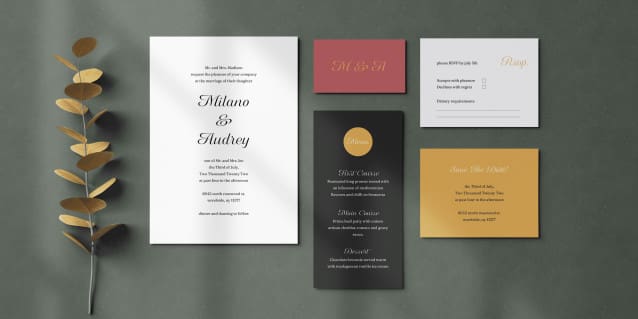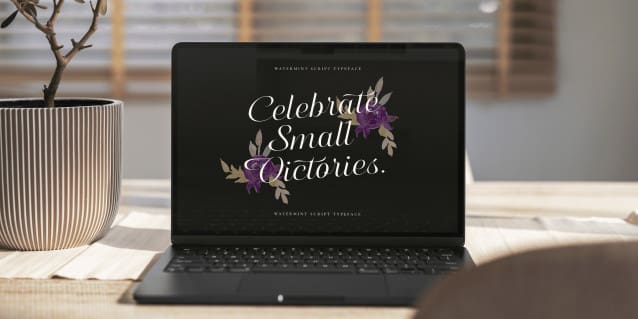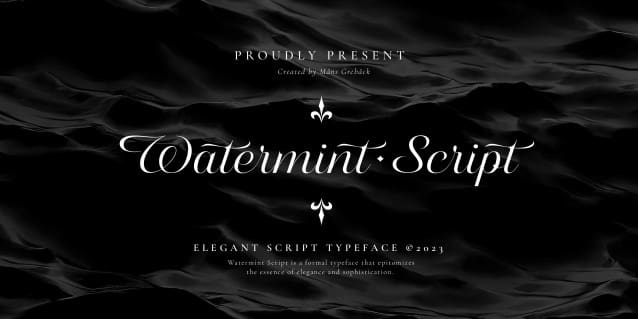
Watermint Script Font
Watermint Script Font, is a formal typeface that epitomizes the essence of elegance and sophistication. Envisioned for formal settings, its calligraphic strokes evoke a sense of classic beauty.